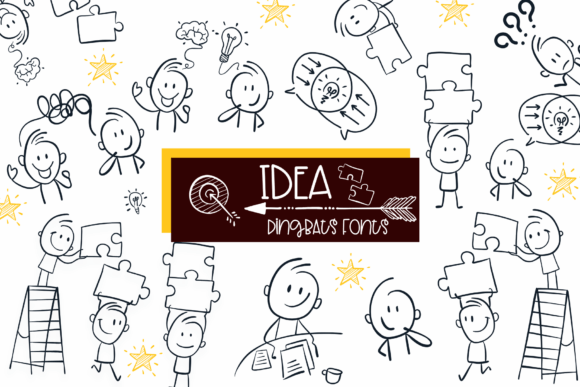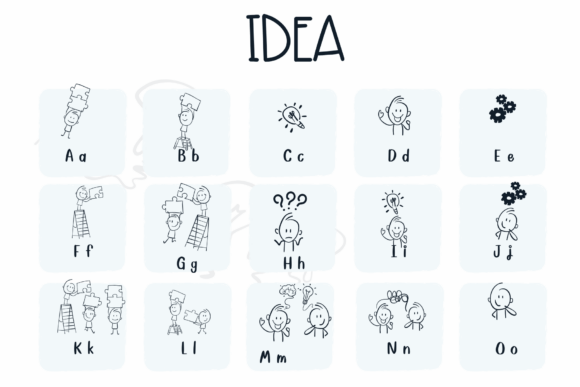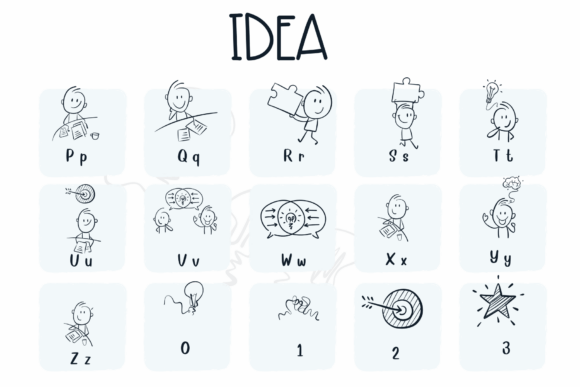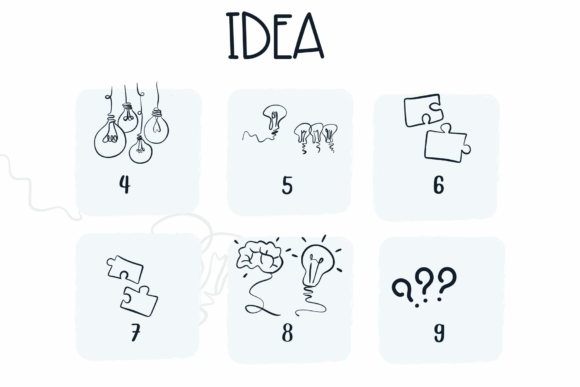
Idea Font
About the Idea Font
Meet Idea Font, a stunning font that brings a touch of elegance and professionalism to any design. Idea is a dingbats font with a sketched style. This font can enhance your creative projects such as wedding invitations, DIY, crafts, decorations, logos, and many other creative ideas.
Idea Font’s sketched style makes it ideal for projects requiring a hand-drawn, whimsical feel. It excels in logos, branding for artisan businesses, packaging for handmade goods, and short headlines where its unique character shines. Avoid using Idea Font for large blocks of text or body copy; its informality and irregularity make it unsuitable for extended reading.
Its playful personality pairs well with clean sans-serif fonts like Open Sans for a balanced contrast, or a more modern geometric sans-serif such as Montserrat for a slightly edgier feel. For a touch of elegance, consider pairing it with a delicate serif like Playfair Display for headings and Idea Font for accents.
The overall mood is lighthearted and creative, best suited for brands emphasizing craftsmanship, individuality, and a touch of charming imperfection. Avoid using it for projects requiring a formal, corporate, or minimalist aesthetic.